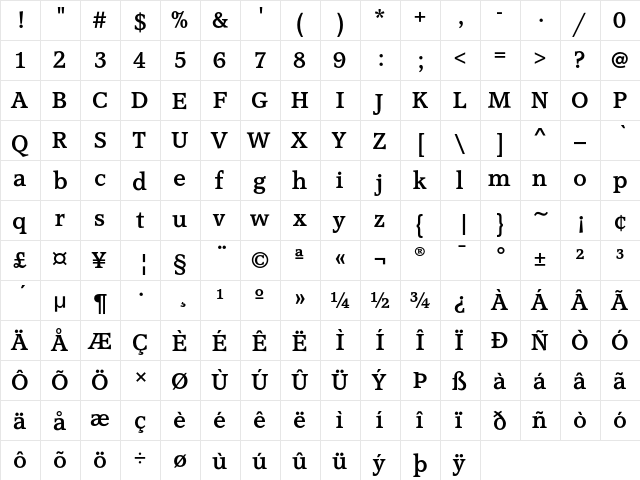
AccoladeEF Medium
Design Context for AccoladeEF Typeface
AccoladeEF offers clean, dependable letterforms without strong stylistic allegiance, making it a practical choice for designers who need flexibility.
Pro Tip: Use AccoladeEF in both headline and body roles to test its range before committing to a single application.